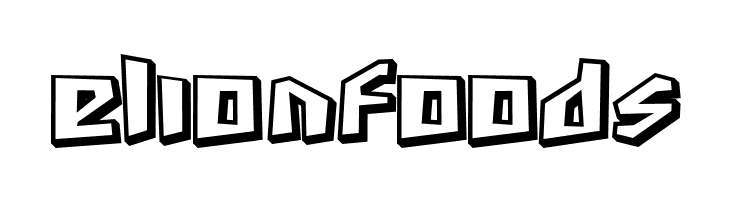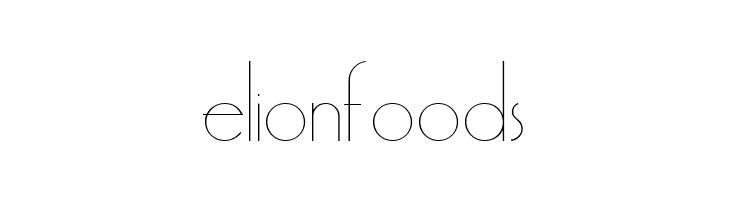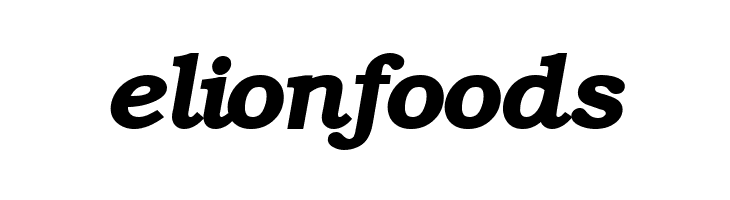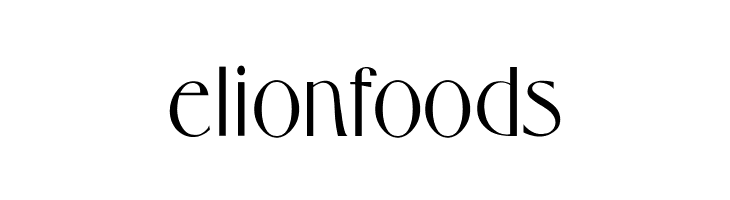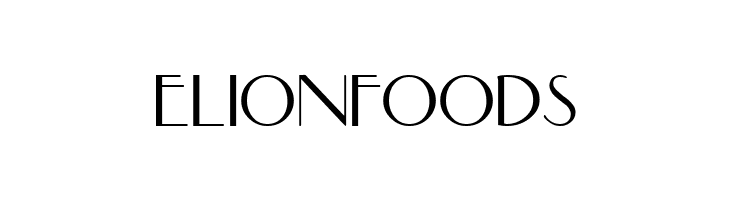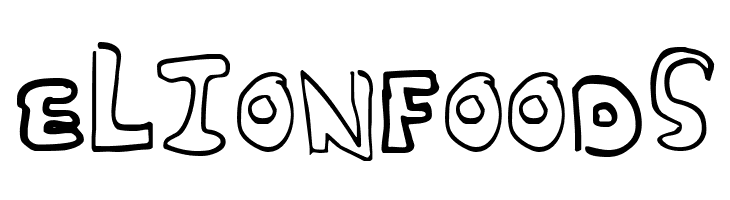
A playful, high-contrast font with a cut-out, eclectic style.
A modern serif font with sharp, angular serifs and dynamic stroke variations.
A modern, elongated font with a geometric and sleek design.
A playful, hand-drawn font with bold outlines and a cartoonish style.
A bold, geometric font with a 3D shaded effect and thick outlines.
A bold, decorative font with a hollow, outlined design and modern appeal.